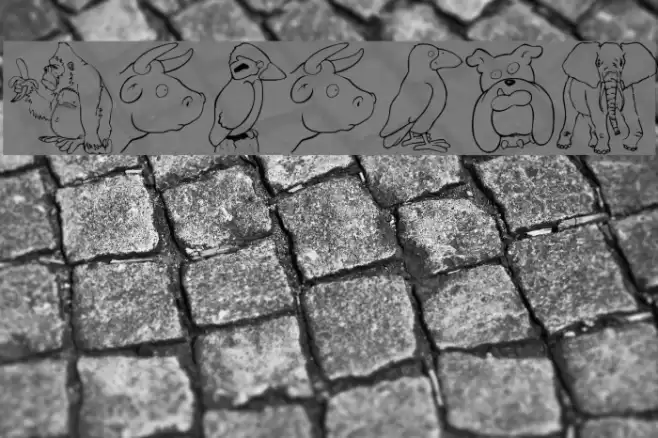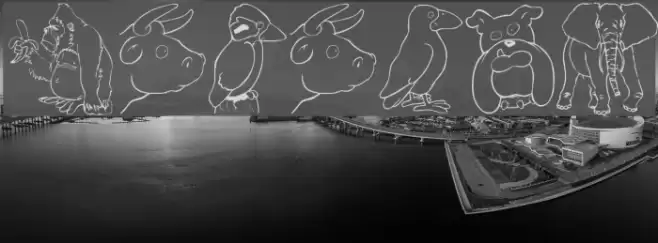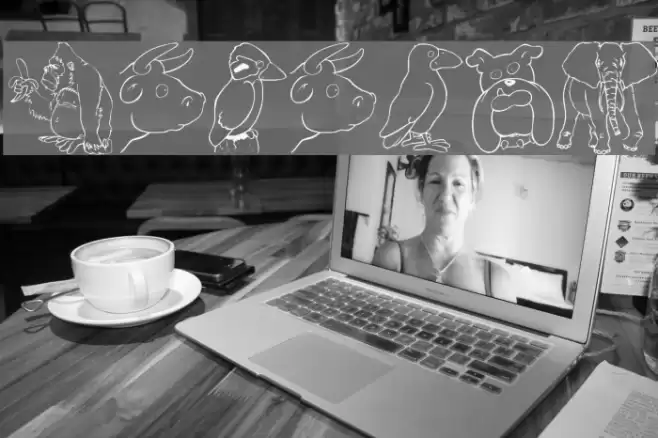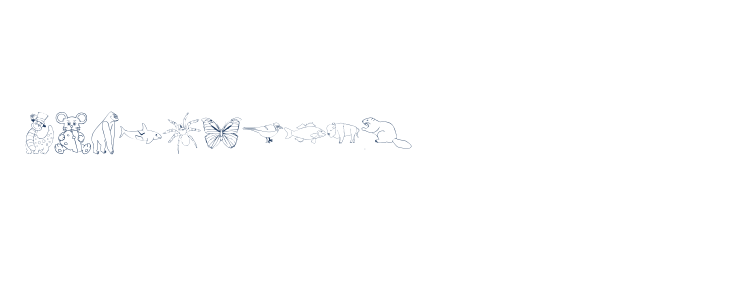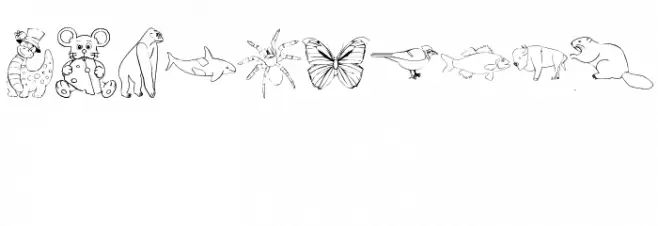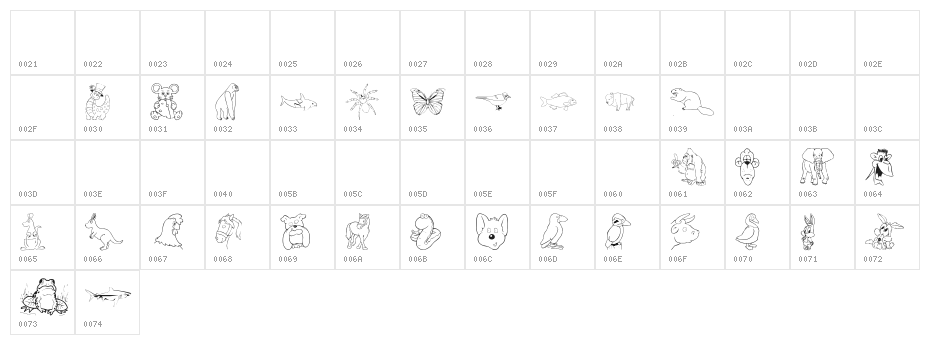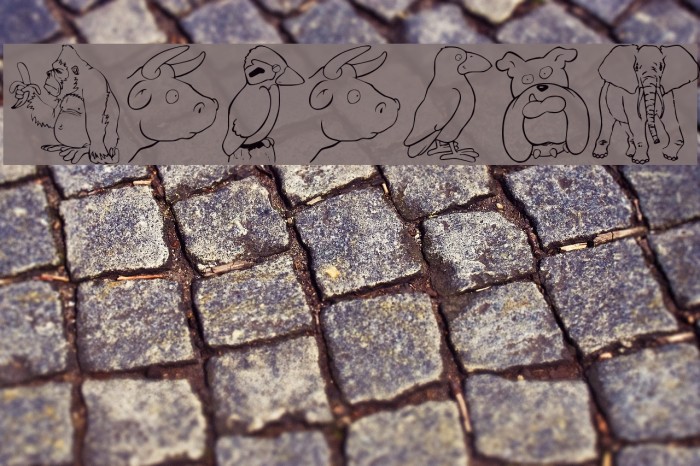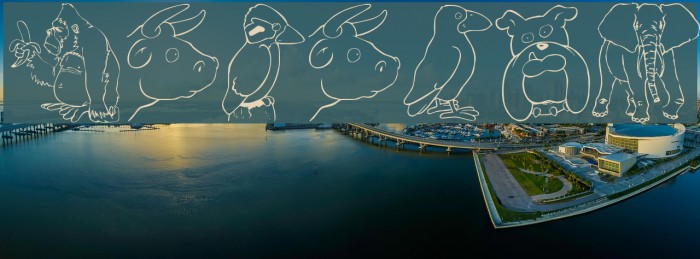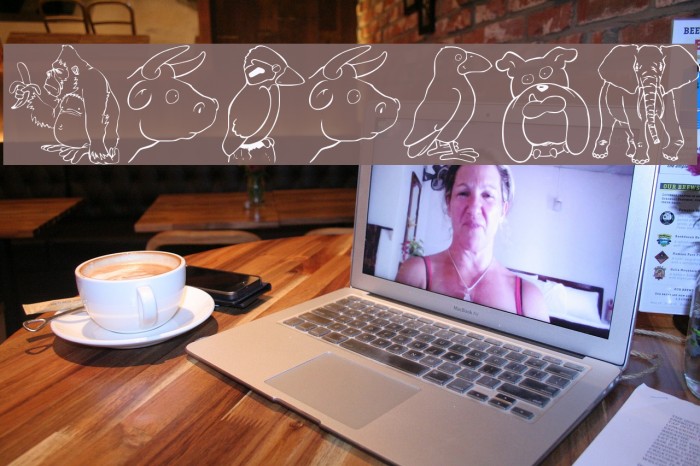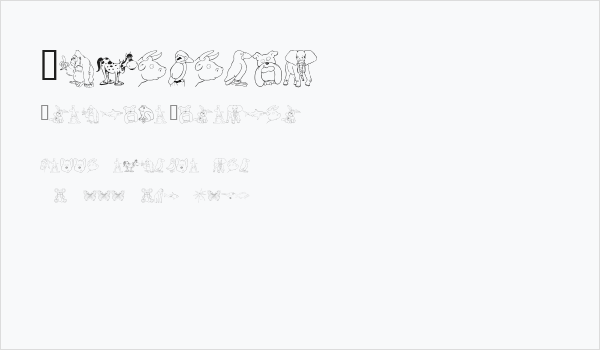
Taxonomic Font
Taxonomic Description
A playful and whimsical decorative font where each character is represented by a unique cartoon-style animal illustration, emphasizing a hand-drawn, sketch-like quality with varied line thickness and expressive details.
Cartoon animal illustrations form each character in a decorative, hand-drawn style from Cartoon fonts.
- Proposed Projects: Children’s books, educational materials, animal-themed party invitations, playful branding, posters for kids’ events.
- Overall Style: Whimsical, Playful, Hand-drawn
- Use Case: Headlines, Posters, Logos, Educational materials